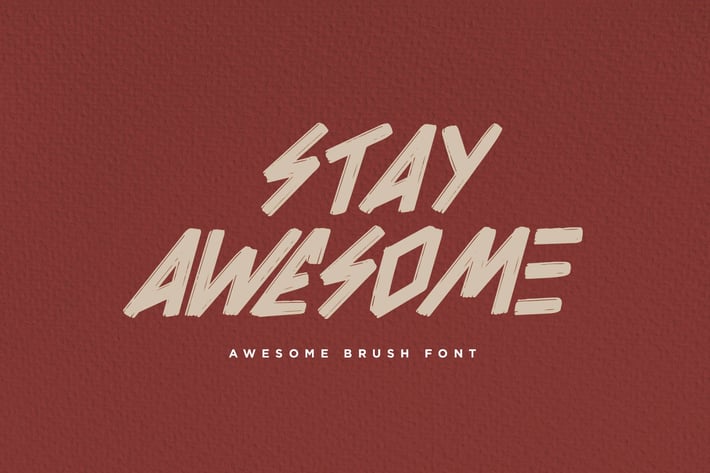
Awesome Brush Font
Awesome Brush Font with Natural Handwritten Artistic Style,
this is perfect for branding, logos, packaging, masterheads and more.
Awesome Brush features :
this is perfect for branding, logos, packaging, masterheads and more.
Awesome Brush features :